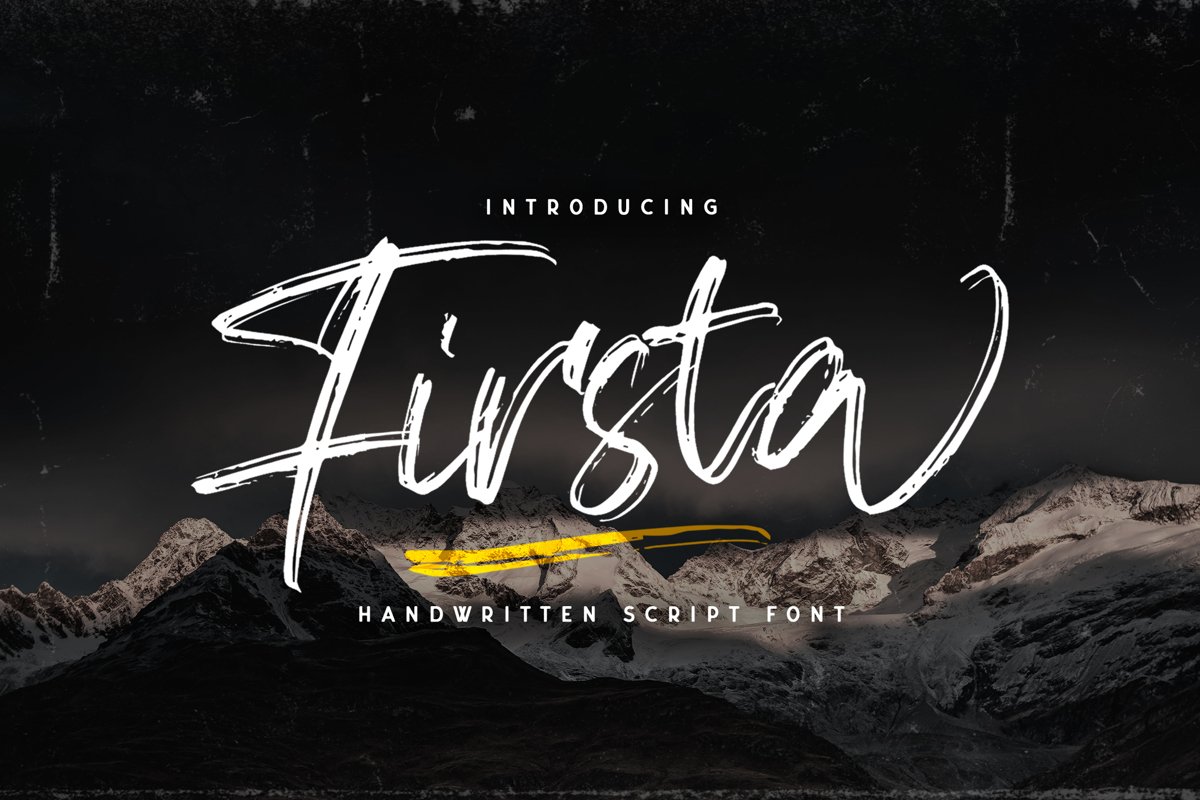
Firsta - Handwritten Font
Firsta
Introducing Firsta - Handwritten Font
Firsta is a Script Font with Handwritten Style. The Firsta font made with digital brush pen strokes that making this font look authentic. This font is perfect for fashion brand, wedding invitation, business card, logo brand, signature, and then calligraphy.